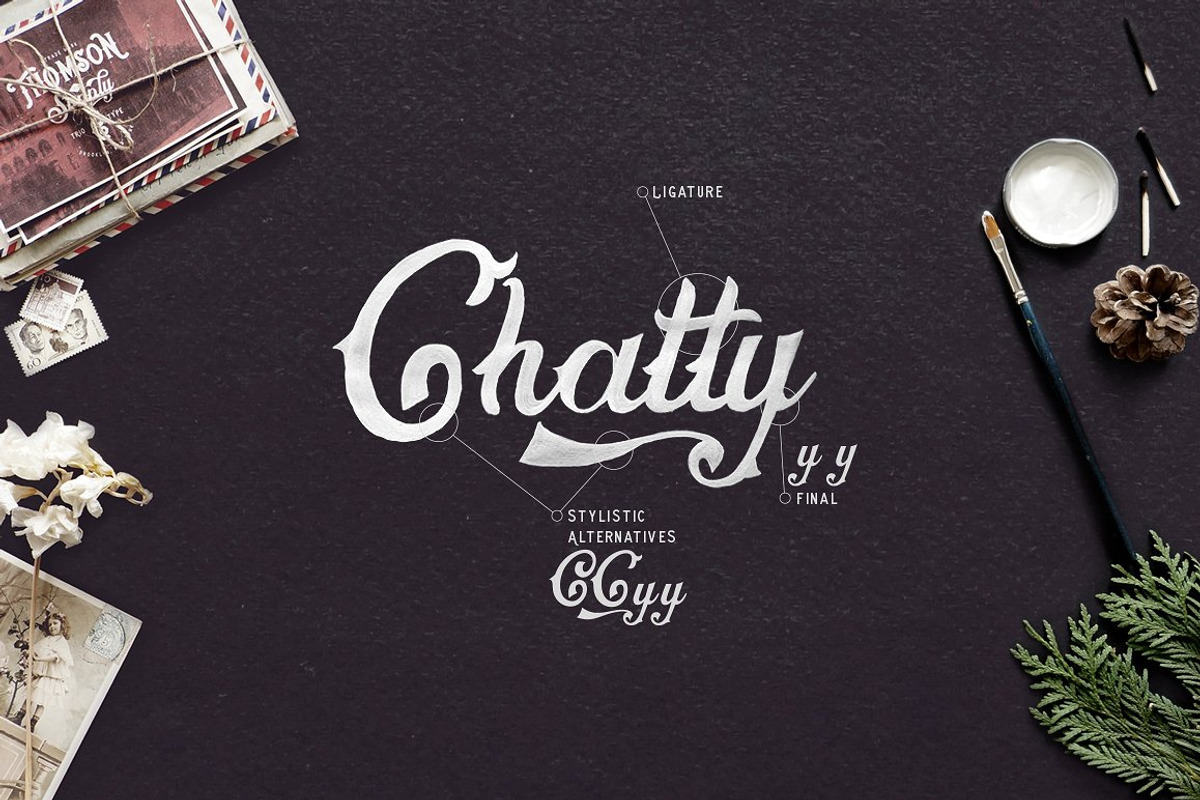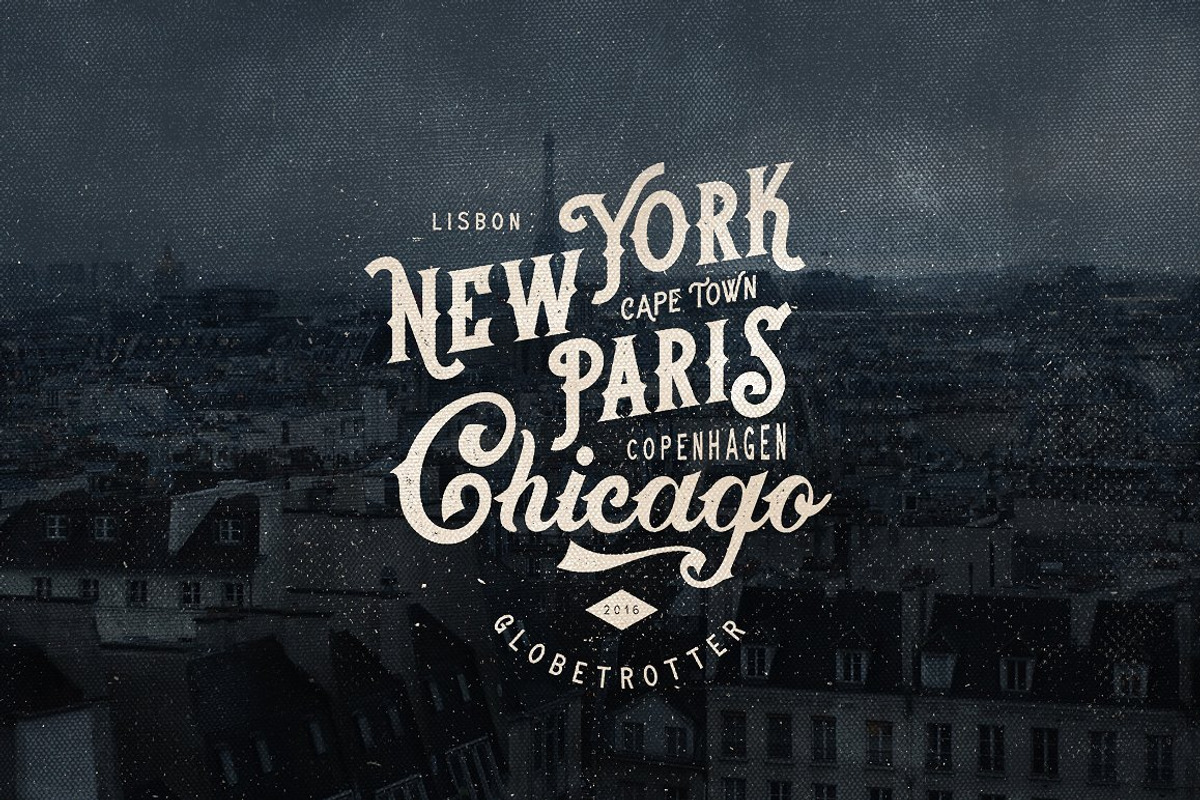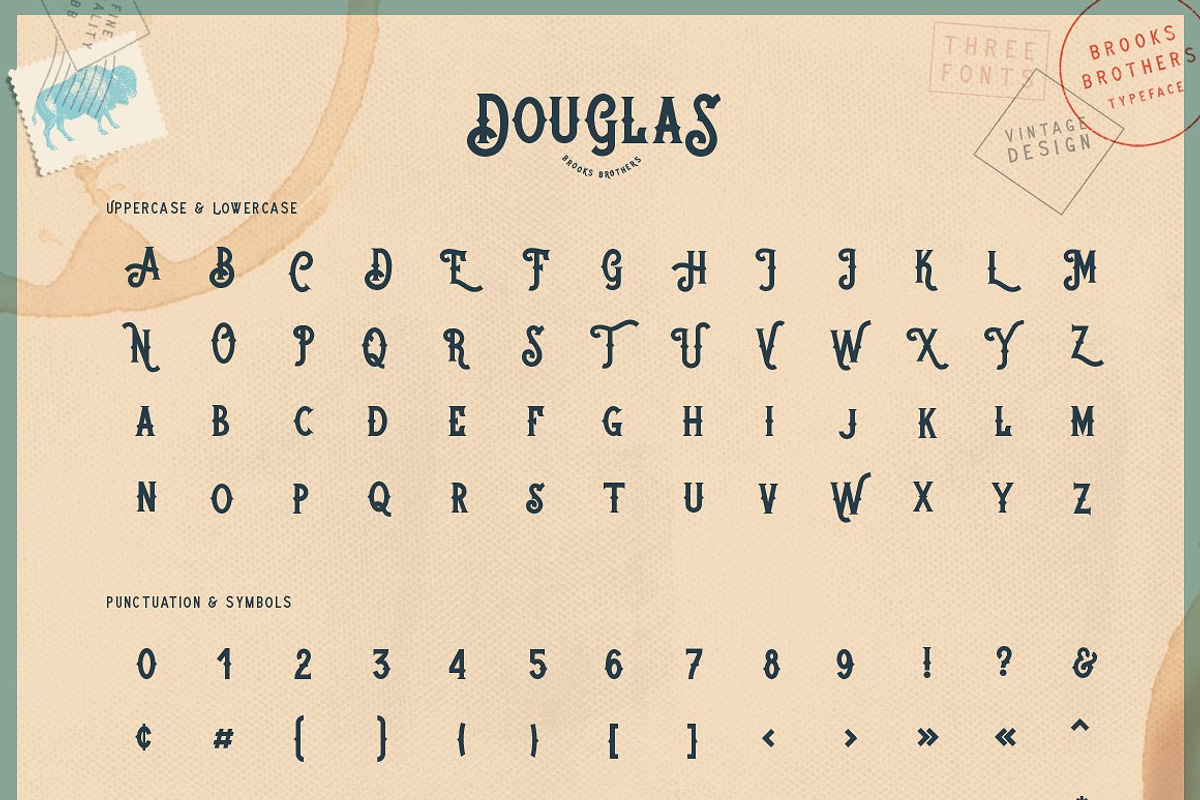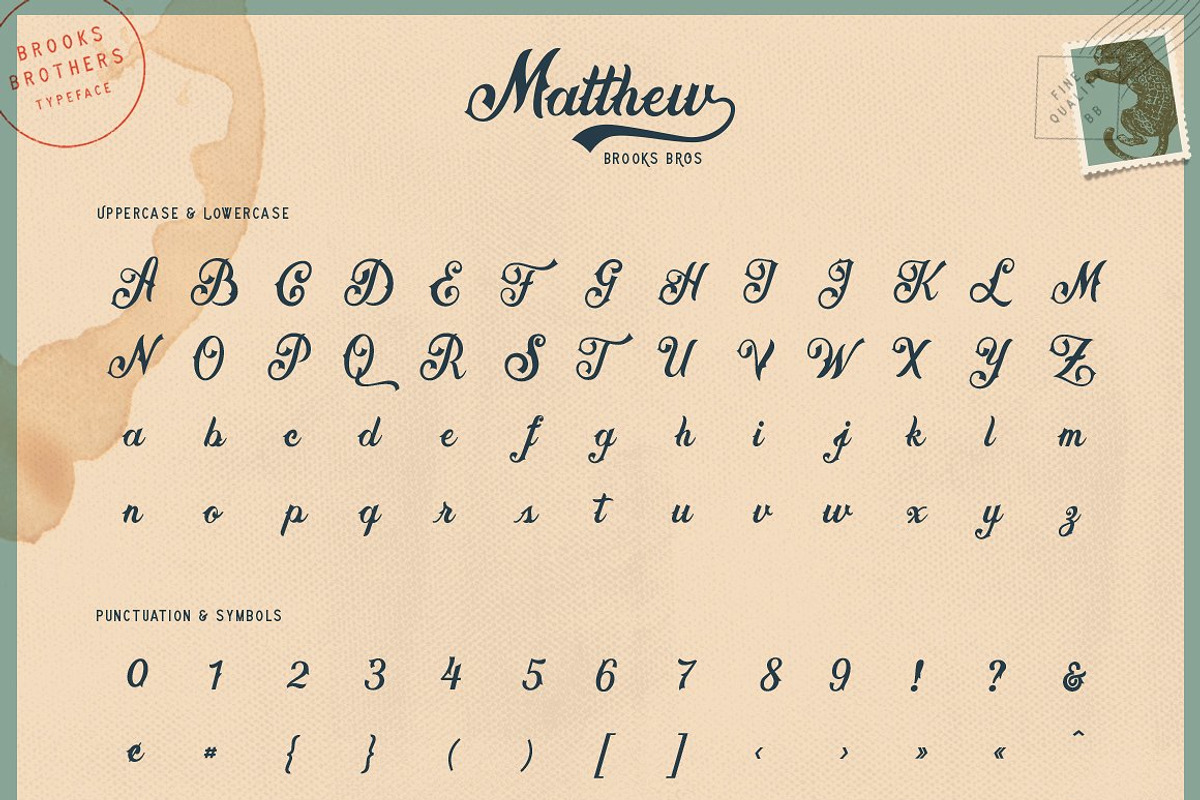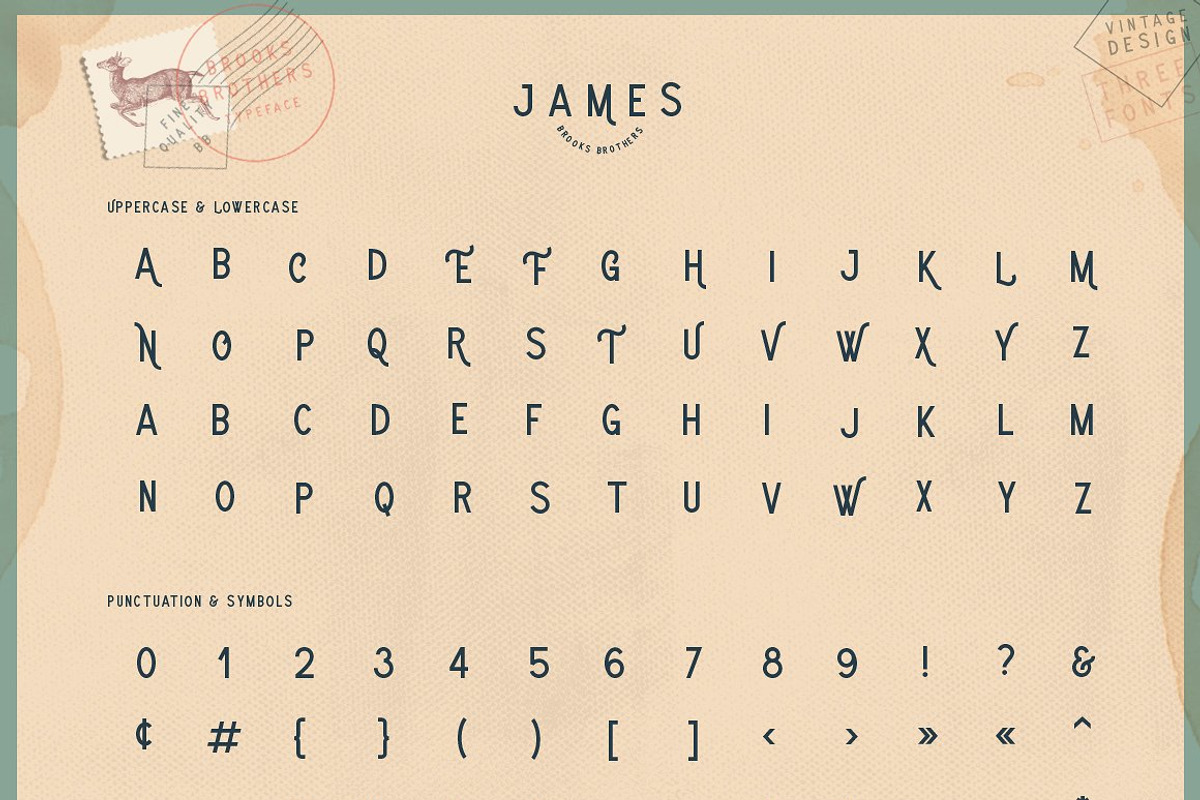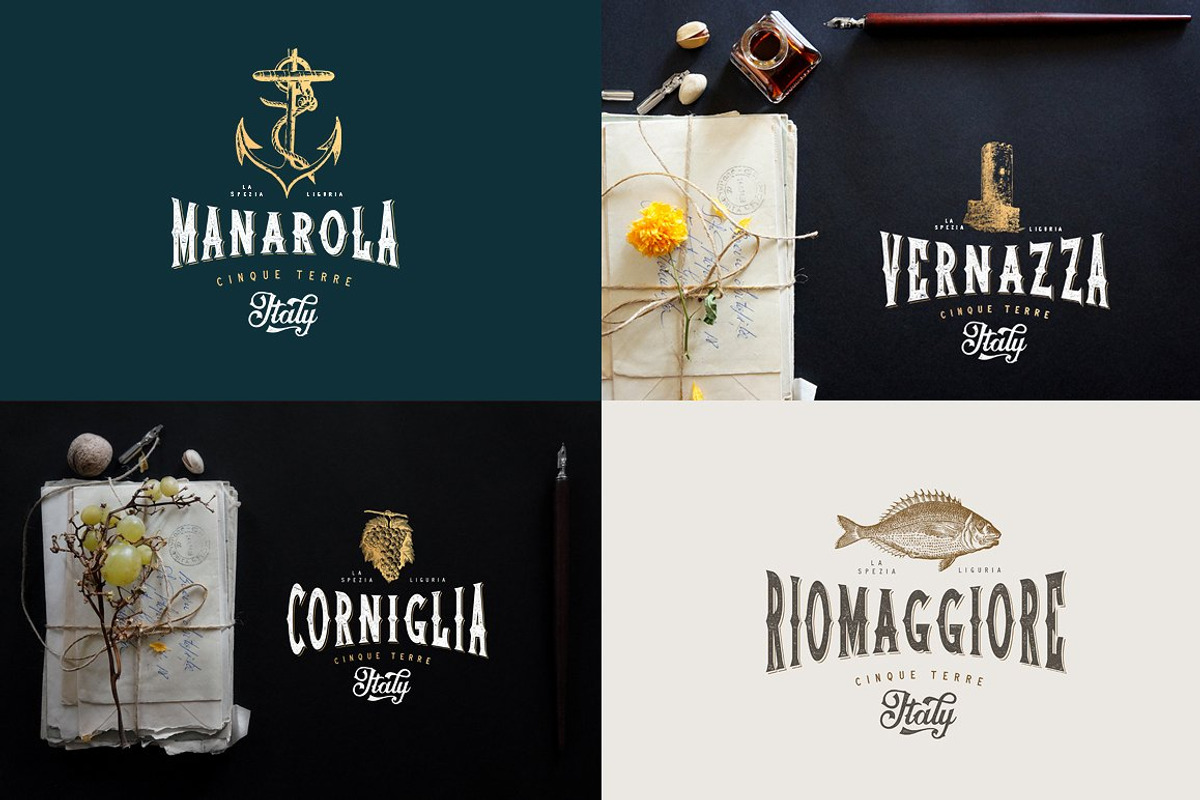
Brooks Brothers Typeface
Brooks Brothers Typeface by Liviu is a font selected for branding, posters, packaging, typography.
- Brooks Brothers Typeface contains three fonts: 1.
- Matthew type which includes upper & lowercase characters, punctuation, symbols, stylistic alternatives, ligatures, finals, international cha
- Douglas type which includes upper & lowercase characters, punctuation, symbols and international characters.
- James type which includes upper & lowercase characters, punctuation, symbols and international characters.
Why Brooks Brothers Typeface is worth a look
Brooks Brothers Typeface by Liviu fits naturally into Branding, posters, packaging, typography.